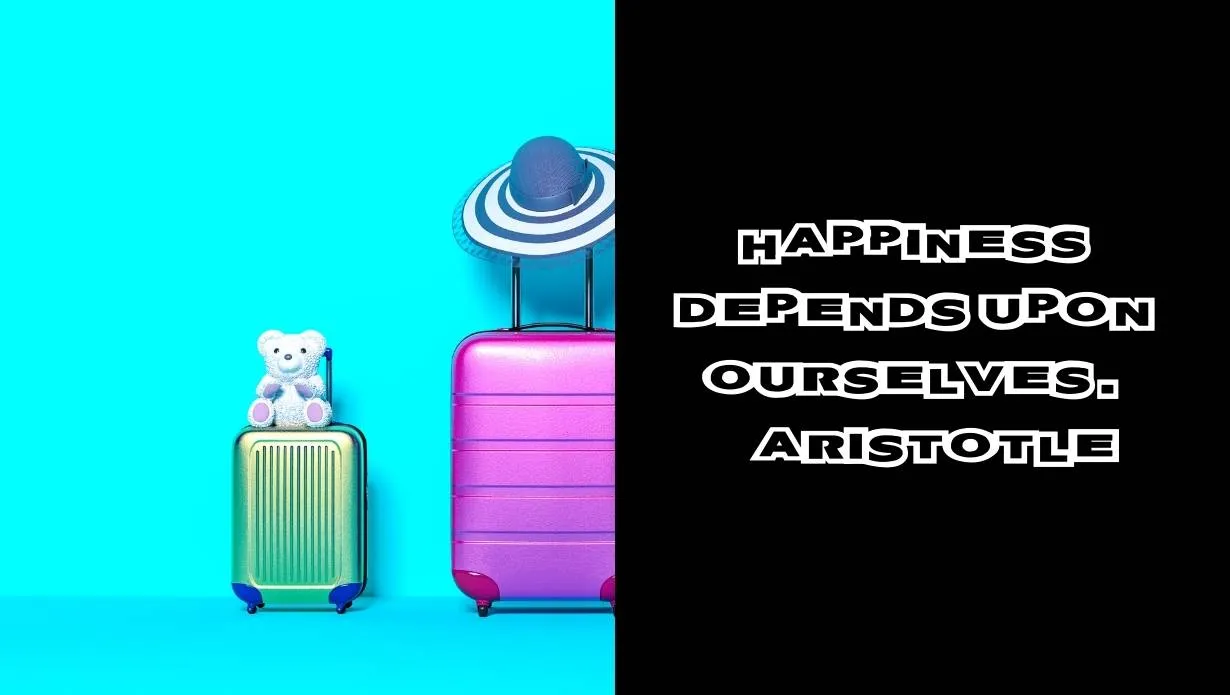
Here, we are going to introduce a new stylish and attractive typeface named Oreo Font. This awesome font family belongs to the display typeface. It supports both Latin and Cyrillic languages. This amazing font family was designed by Mr. Dennis Ludlow.
Oreo Font Family